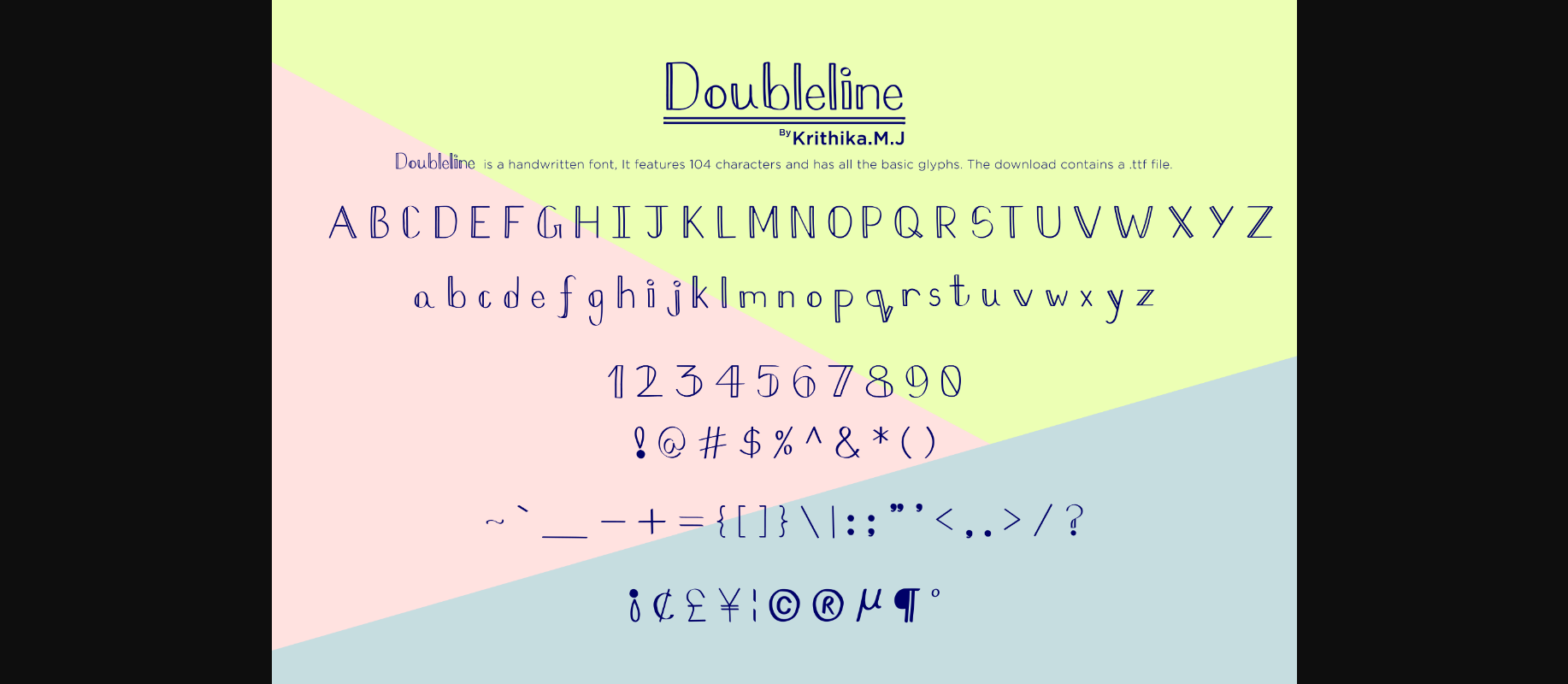
Doubleline Font
About Doubleline Font
Doubleline is a handwritten font. Looks great for titles and subheadings. It is perfect for advertising projects, logo designs, branding, merchandise, invitations, social media posts and any sort of web and print use.